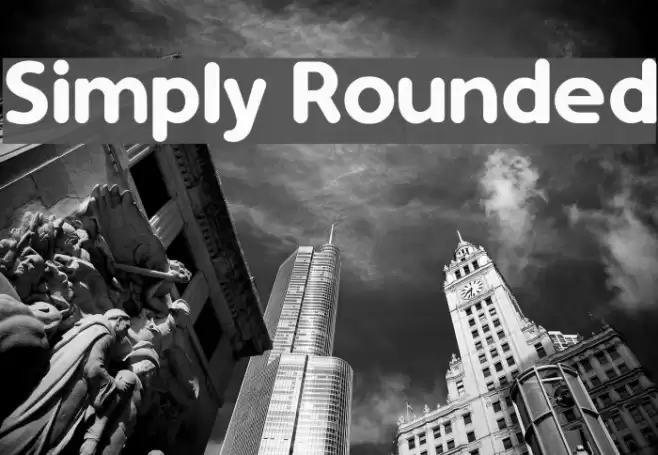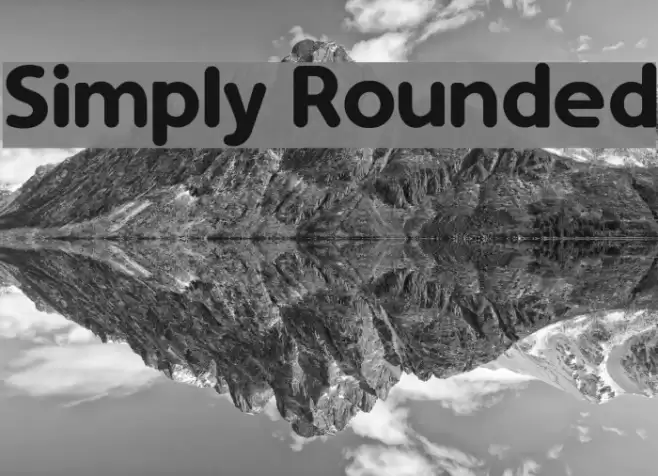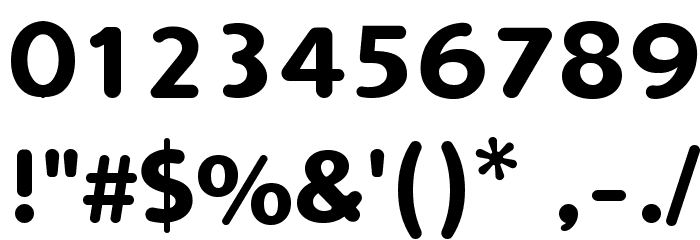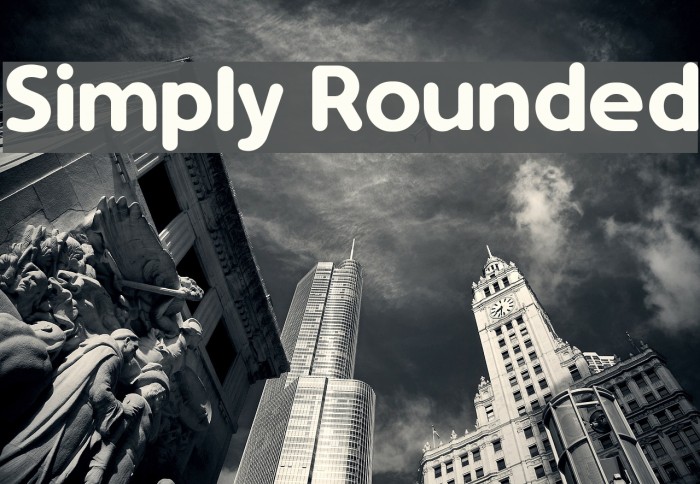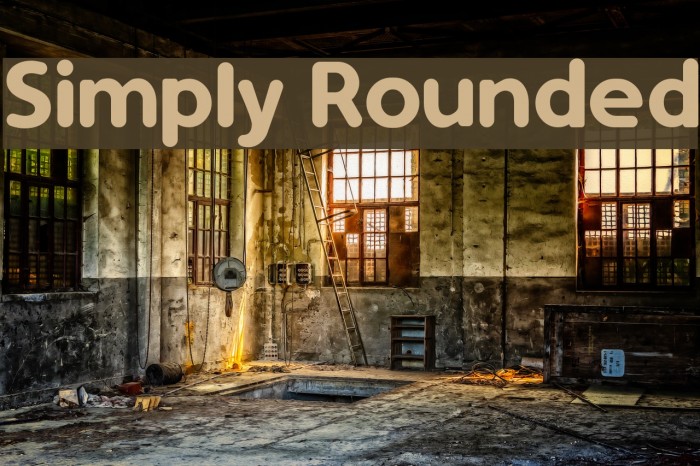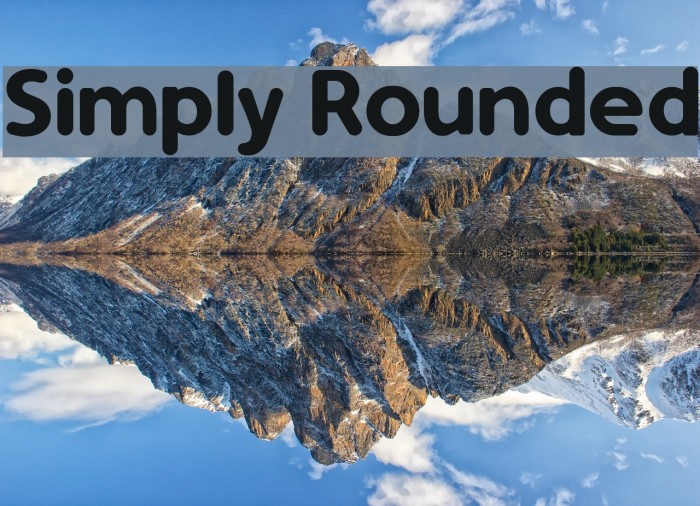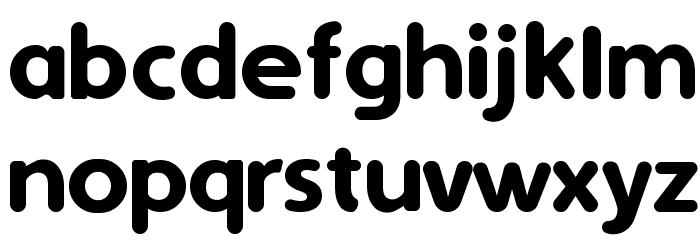
Simply Rounded Font
Simply Rounded Description
This font features a clean and modern design with rounded edges that give it a friendly and approachable appearance. The uniform stroke width and lack of serifs contribute to its simplicity and readability. It maintains a consistent weight throughout, making it suitable for a variety of applications. The characters are evenly spaced, providing a balanced and harmonious look. The font includes a full set of uppercase and lowercase letters, numerals, and a range of punctuation marks and special characters. Its smooth curves and geometric shapes make it versatile for both digital and print media.
A modern, rounded sans-serif font with a clean and friendly style from Uncategorized fonts.
- Proposed Projects: Ideal for branding, advertising, web design, and user interfaces due to its clarity and modern appeal.